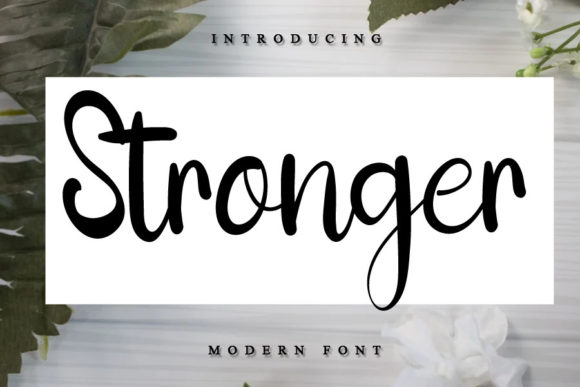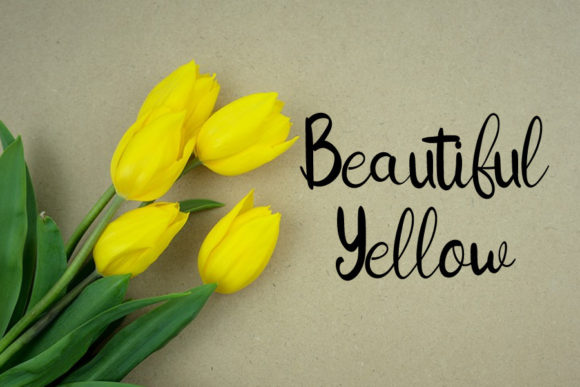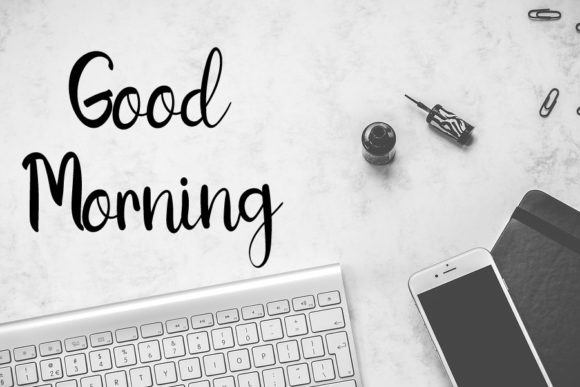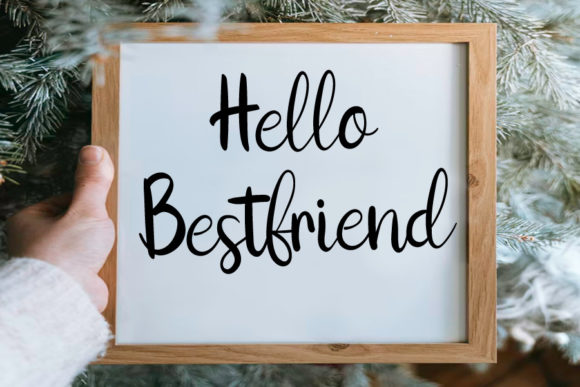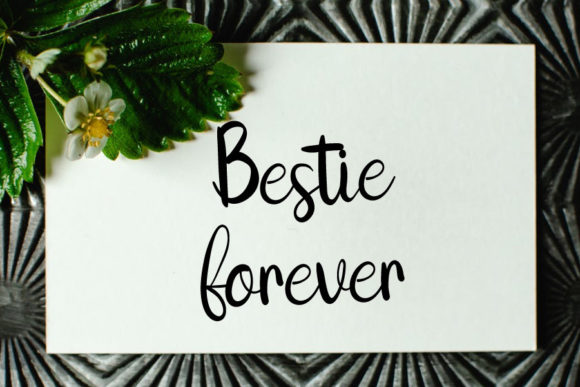
About Stronger Font
Introducing “Stronger,” a modern and captivating font designed to enhance your design projects across various platforms. With its fresh and beautiful aesthetic, Stronger is the perfect choice for a wide range of design purposes, including YouTube banners, cover logo mockups, wedding invitations, ID cards, flyers, crafts, and more.
This font exudes strength and sophistication, making it an ideal companion for businesses seeking to make a bold statement. Whether you’re showcasing your brand online, inviting guests to a special event, or creating promotional materials, Stronger adds a touch of elegance and professionalism to every design.
In addition to its aesthetic appeal, Stronger boasts simplicity and uniqueness, ensuring that your designs stand out from the crowd. Its clean lines and modern styling create a sense of refinement and innovation, making it a versatile choice for any design project.
Experience the transformative impact of Stronger and witness your business progress and develop with each stunning design. Let its bold and distinctive charm inspire confidence and drive success in all your endeavors.
Unlock the full potential of your designs with Stronger and elevate your brand to new heights of excellence. Whether you’re an experienced designer or just starting out, this font empowers you to create memorable designs that leave a lasting impression on your audience.